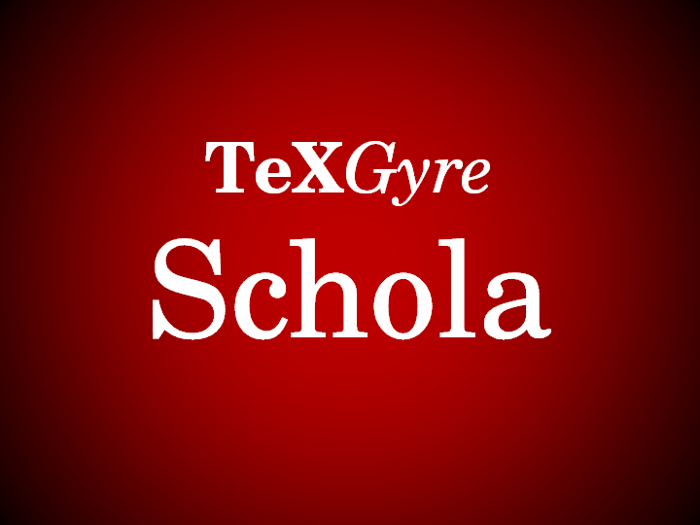
TeXGyreSchola Font
About TeXGyreSchola Font
More info from GUST e-foundry
The TeX Gyre Schola family of serif fonts is based on the URW Century Schoolbook L family distributed with Ghostscript. The original was designed by Morris Fuller Benton in 1919, for the American Type Founders. The constituent 4 standard faces contain nearly 1250 glyphs each